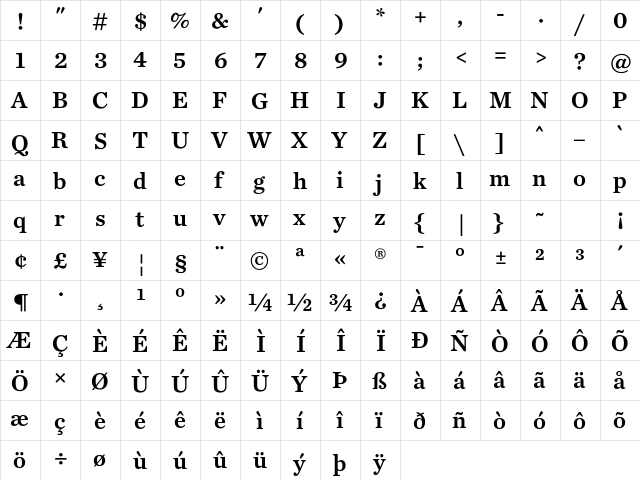
Chronicle Text G3 Semibold
| Foundry | Hoefler & Frere-Jones |
| Designer | Hoefler & Frere-Jones |
Design Context for Chronicle Text G3 Typeface
Chronicle Text G3 takes a measured approach to typography — its balanced proportions and neutral character make it a reliable workhorse for both digital and print work. Its bold stroke weight gives it real presence on the page.